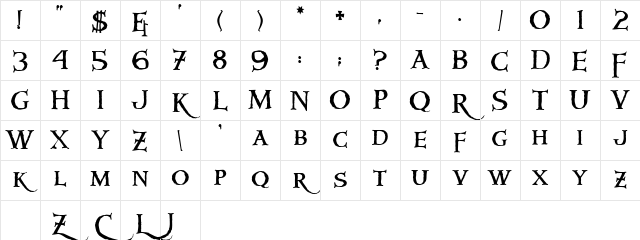
Complete Quasimodo Regular glyph index. Displaying only characters natively supported by Quasimodo Regular font.
Quasimodo is a composed and adaptable typeface that performs quietly and consistently across a wide range of design contexts.
Who designed the Quasimodo Regular font?